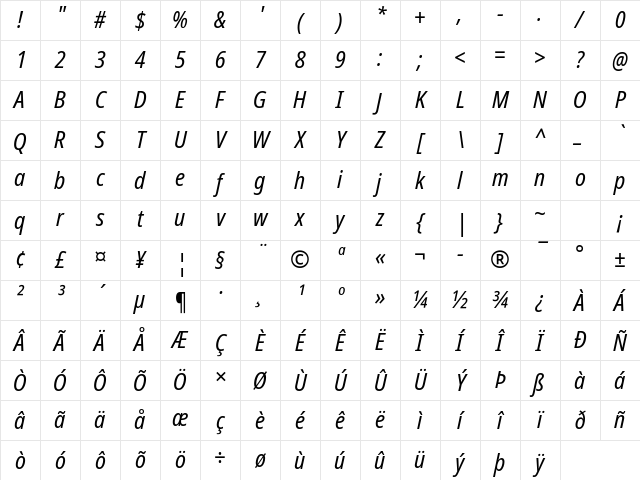
NotoSans Nerd Font Italic
Foundry: Monotype Imaging Inc.
Designer: Monotype Design Team
Design Context for NotoSans Nerd Font
NotoSans Nerd Font is a composed and adaptable typeface that performs quietly and consistently across a wide range of design contexts. The slanted form adds forward momentum and visual energy.
Pro Tip: Use NotoSans Nerd Font for emphasis, pull quotes, and subheadings where its slanted energy can add rhythm to the layout.